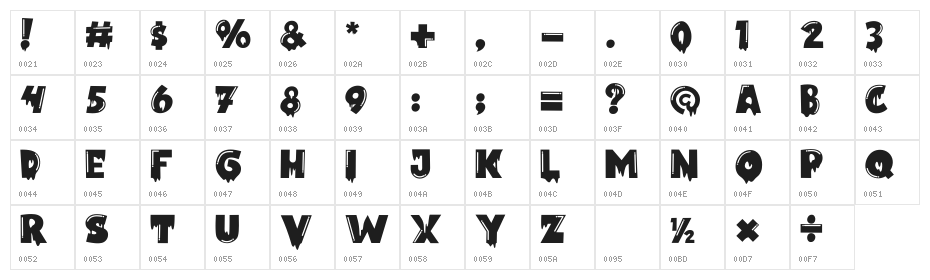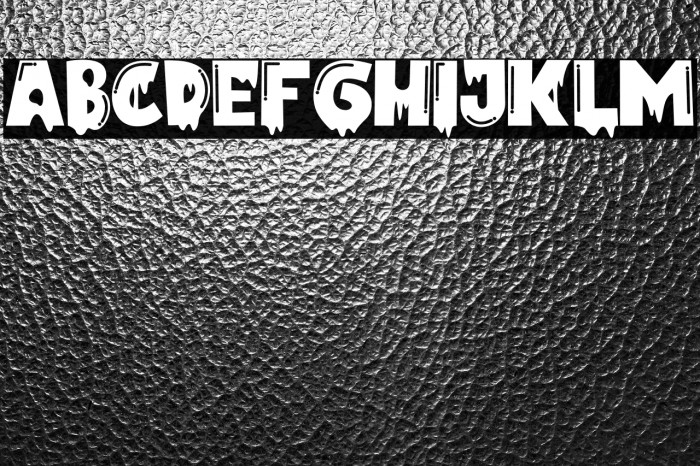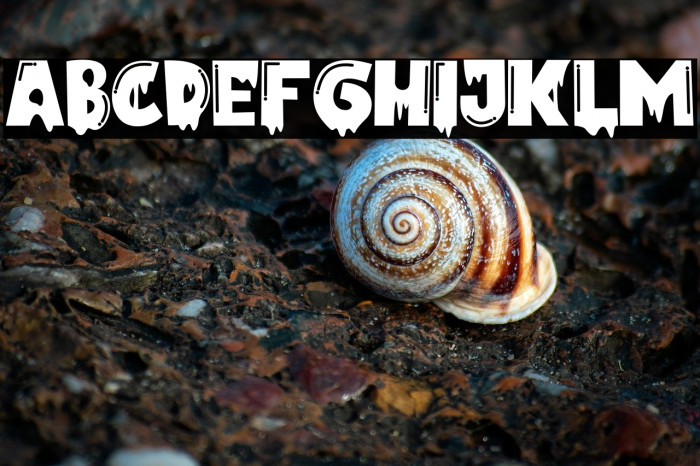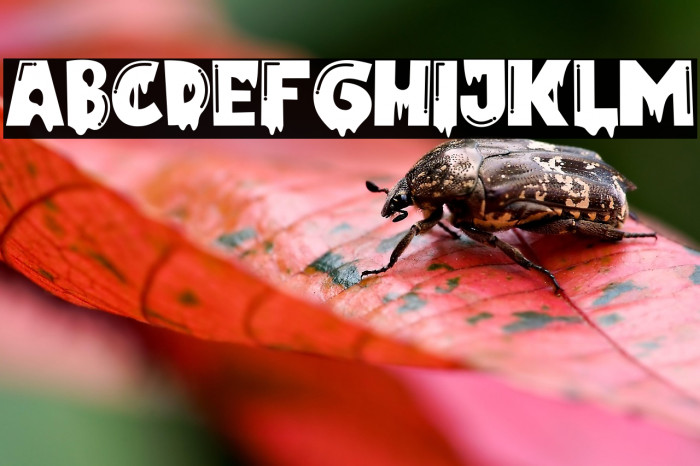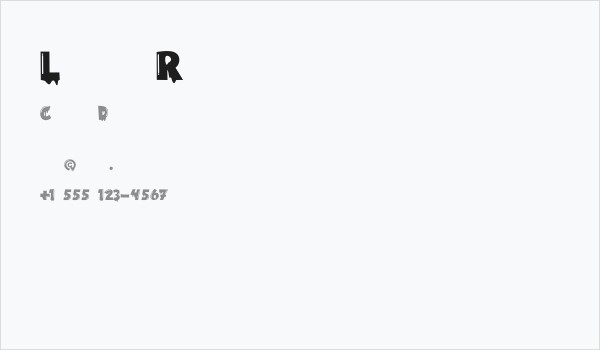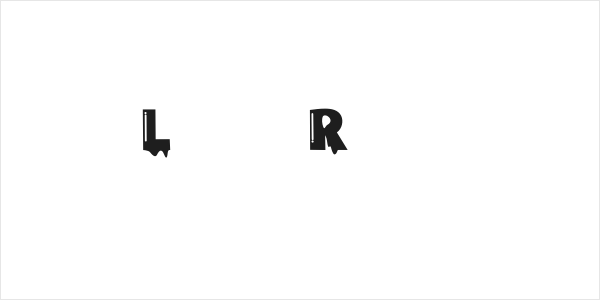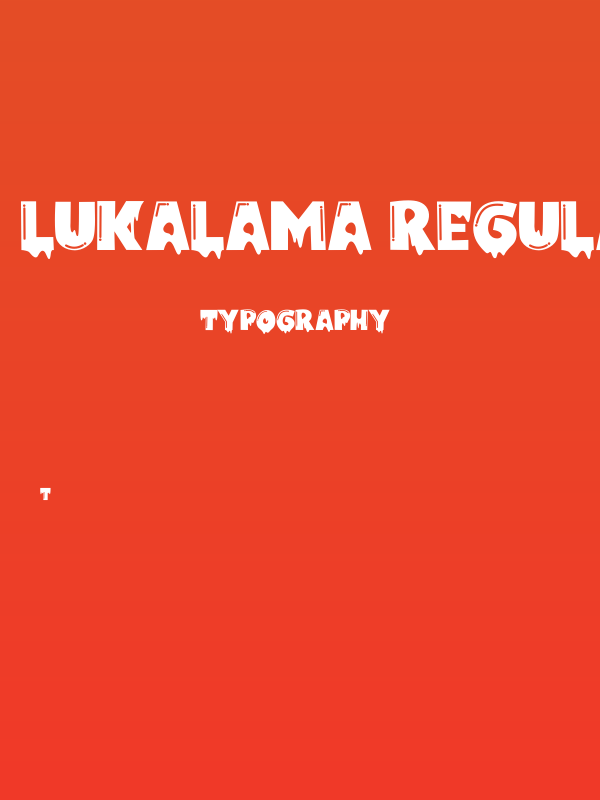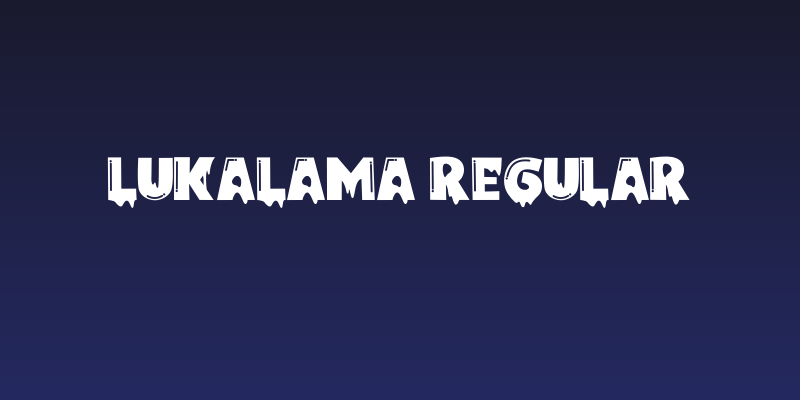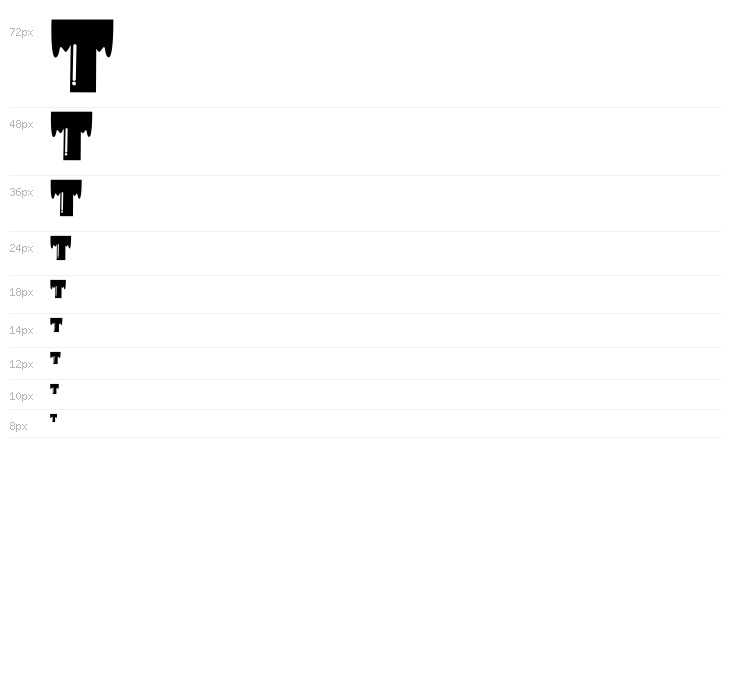
Lukalama Regular Font
Lukalama Regular Description
This font features a bold and dramatic style with a dripping effect that gives it a unique, spooky appearance. The characters are heavily stylized, with thick strokes and irregular edges that create a sense of movement and fluidity. The uppercase letters are particularly striking, with their bold forms and dynamic shapes. The numbers and special characters maintain the same dripping effect, adding to the overall cohesive look. This font is perfect for creating eye-catching designs that require a touch of the eerie or mysterious.
| Use Case | Headlines, Posters, Logos |
| Proposed Projects | Ideal for Halloween-themed designs, horror movie posters, or any project needing a dramatic and eerie touch. |